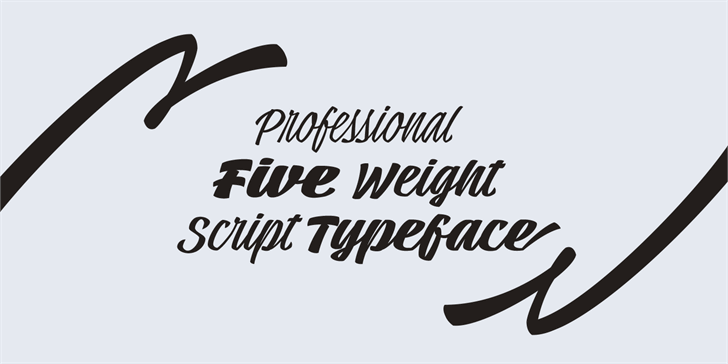
Free Tall Casat Fat Font
Take a look at this mouth-watering free tall casat fat font. Font Space has created this amazing and beautiful free typeface. You can create a professional designs with this beautiful font.